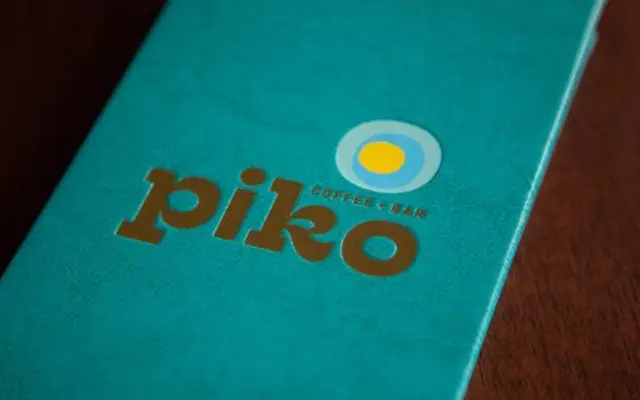
A reverse-stress slab serif with rounded contours and a casual West Coast character, available in four weights with matching italics.
Hatch sits in the reverse-contrast slab tradition, where horizontal strokes carry more weight than vertical ones, giving it an unconventional rhythm that stands apart from conventional slab serifs. Rounded contours and a subtle contrast keep the tone casual rather than stern, making it a practical choice for branding, identity and editorial work. Eight styles span Light to Bold with italics throughout.
Hatch is explicitly described as a horizontally inclined slab serif with reverse stress, placing it in the reverse-contrast or 'reverse stress' slab genre, a distinctive subgroup of slab serifs.